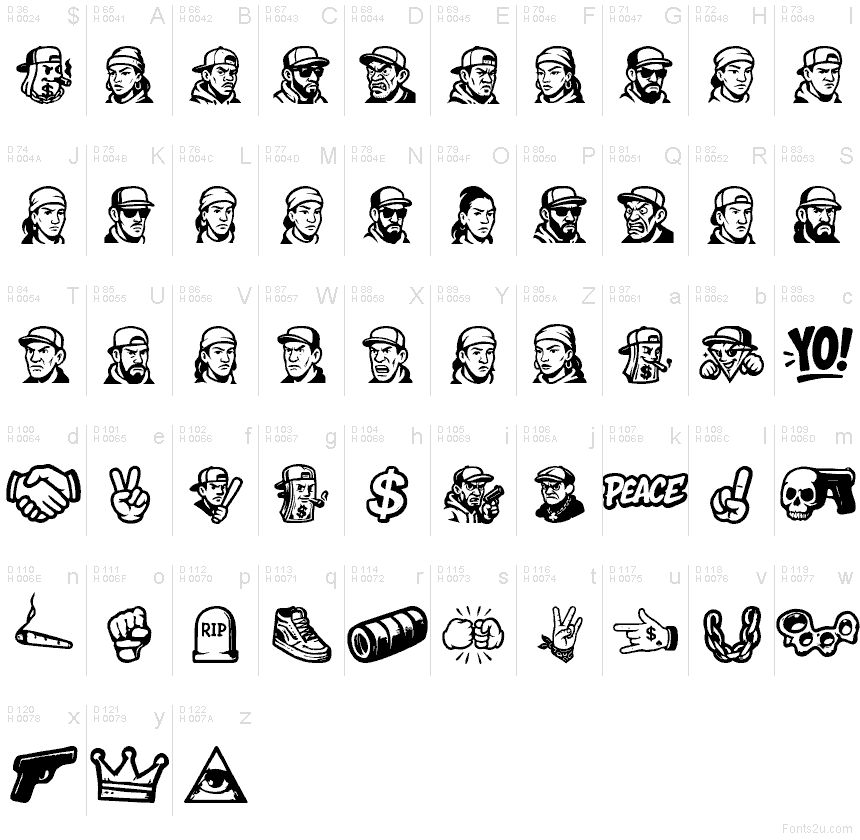
Gangsta Paradise
Gangsta Paradise font is a graffiti-inspired font that contains decorated symbols for creating rich and eye-catchy titles. The contained symbols have various forms and special edge shapes which means each one you use will make your text appear differently. Whether they are mixed together, or combined with ordinary letters, the resulting designs will get the required unique-touched advantage.